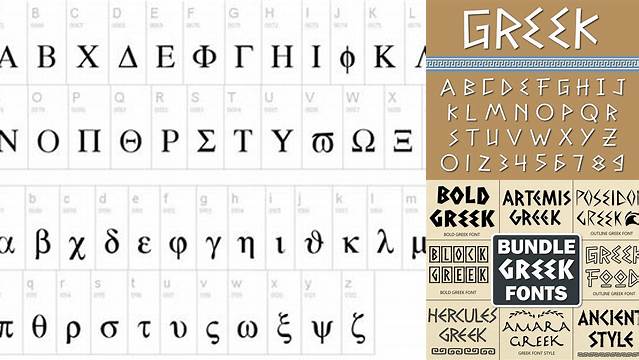
Free Classical Greek Fonts: Download & Use Guide
Are you fascinated by the beauty and history of the Greek alphabet? Do you want to add a touch of ancient elegance to your projects? You're in the right place! This guide will walk you through everything you need to know about classical Greek fonts, offering free downloads and tips on how to use them effectively. Whether you're a designer, a student, or simply someone who appreciates the art of typography, you'll find valuable insights here. Get ready to explore the world of Greek fonts and unlock their potential for your creative endeavors.
Understanding Classical Greek Fonts
So, what exactly are classical Greek fonts? These fonts are designed to replicate the letterforms used in ancient Greece. They capture the essence of the original Greek alphabet, which has been a cornerstone of Western civilization for millennia. These fonts are not just about aesthetics; they represent a rich history of language, philosophy, and art. Using these fonts can add a layer of authenticity and sophistication to your work, making it stand out. They are perfect for a variety of projects, including historical documents, academic papers, website designs, and even artistic creations. When you download a classical Greek font, you're not just getting a set of letters; you're gaining access to a piece of history and culture. There are many different styles within the category of classical Greek fonts, each with its unique characteristics. Some fonts may aim to replicate the inscriptions found on ancient monuments, while others might reflect the style of handwritten manuscripts. Understanding the different styles available allows you to choose the perfect font for your specific needs. This also helps you to convey the right message to your audience, as the choice of font can significantly influence the overall tone and impact of your work. The evolution of the Greek alphabet is a fascinating subject. It began as an adaptation of the Phoenician alphabet and gradually developed into the system we recognize today. Over time, different scripts and styles emerged, each reflecting the artistic and cultural influences of its era. When you use a classical Greek font, you’re connecting with this rich legacy. It’s like giving your work a direct link to the ancient world. Considering the variations of the Greek alphabet is crucial. You'll find fonts that accurately render all the characters, including accents, diacritics, and special symbols. Make sure the font you choose supports all the necessary characters to avoid any display issues. You should look for fonts that offer a comprehensive character set to ensure that your text looks as it should. Some fonts may include extended character sets with various mathematical and scientific symbols. This is especially useful for academic and technical projects. The beauty of using classical Greek fonts is in the details. Even the subtle differences between fonts can dramatically alter the look and feel of your design. Carefully selecting the right font is essential for creating the desired visual effect. Whether you're aiming for a formal, academic look or a more artistic and creative feel, choosing the right classical Greek font will make a big difference.
Where to Find Free Classical Greek Fonts
Alright, so you're keen to get your hands on some free classical Greek fonts? Awesome! There are plenty of resources available online where you can find these fonts. Let's take a look at some of the best places to start your search. One of the most popular websites for free fonts is Google Fonts. They offer a fantastic selection of fonts, many of which support Greek characters. The best part? They are all free to use for both personal and commercial projects. This makes them a great option for designers, students, and anyone looking to experiment with Greek typography without spending a dime. Another excellent source is Font Squirrel. This website handpicks high-quality, free fonts, making it easy to find something that fits your needs. Font Squirrel also provides a convenient way to identify fonts. Using their font identifier, you can upload an image of Greek text and find the font that matches. This is especially useful if you're trying to replicate a specific look or style. Be sure to check the licensing information for each font. Although many are free for commercial use, it's always a good idea to confirm the details. This ensures that you comply with the font's usage terms and avoid any potential legal issues. Many websites also offer font packs or bundles. These packs often include a variety of classical Greek fonts, allowing you to explore different styles and find the perfect font for your project. This is a great way to discover new fonts. If you're looking for unique fonts that are not readily available elsewhere, consider visiting smaller, independent font foundries or design blogs. These sources often feature specialized fonts. By exploring different platforms, you increase your chances of finding something truly special. Before you download a font, make sure to check its character set. Verify that it supports all the Greek characters you need, including any accents, diacritics, and special symbols. The last thing you want is to discover that your font doesn’t have all the characters you require. Always ensure the font includes comprehensive character support, so you don't face any issues during your project. Always check for updates to the fonts. Font designers may release updated versions that fix bugs or include additional features. Staying up-to-date ensures you have the best possible experience. Always keep an eye out for any potential licensing restrictions. The vast majority of fonts are free, but it’s always a good practice to read the fine print. Taking these steps will help you find and use the best free classical Greek fonts for your needs.
Using Classical Greek Fonts in Your Projects
Now that you have your classical Greek fonts installed, it's time to start using them in your projects! But, how do you effectively use them? There are many ways to incorporate these fonts to enhance your designs. Here are some tips and tricks to help you get started. First and foremost, consider the context of your project. Where will your text be displayed? What message do you want to convey? The choice of font should always align with the overall purpose and style of your work. For example, a formal academic paper might benefit from a more traditional, classic font. On the other hand, an artistic or creative project might call for a more unique or stylized Greek font. When working with Greek fonts, it's important to be mindful of readability. Ensure that the font you choose is clear and easy to read, especially in smaller sizes. Avoid using overly ornate fonts for large blocks of text, as they can be difficult to read. Pay attention to the spacing between the letters, words, and lines of text. Adjusting the kerning and leading can dramatically improve the readability and visual appeal of your text. Experiment with different sizes and styles. Try bolding, italicizing, and varying the size of your text to create visual interest and hierarchy. This can help draw attention to key elements and guide the reader's eye through the content. Make sure you choose the right font for the appropriate context. In a historical document, select a font that mimics the style of ancient inscriptions. For modern designs, select a font that reflects contemporary aesthetics. Combining these different font types can create a unique and visually appealing design. Always consider the character set available in your chosen font. Ensure that it supports all the necessary Greek characters, including any accents and diacritics. There are often issues of compatibility between different software and systems, so checking the character set can save you a lot of trouble. Experiment with different text layouts and arrangements. Try using Greek fonts in headlines, titles, or headings to add visual interest and highlight important information. Avoid using Greek fonts in large blocks of body text, as this can reduce readability. By following these guidelines, you can effectively incorporate classical Greek fonts into your projects and elevate their visual impact. Experiment with different options to find the perfect balance between form and function. The beauty of these fonts lies in their versatility and the ability to bring a touch of history and elegance to any design. Remember, the right choice of font can make all the difference.
Encountering problems while using classical Greek fonts? Don't worry, it's not uncommon. Here's how to troubleshoot some common issues. One of the most frequent problems is missing characters. If some Greek letters appear as boxes or question marks, it likely means that the font you're using doesn't include those characters. The solution is to choose a font that supports the full range of Greek characters, including accents, diacritics, and any special symbols. Another common issue is font compatibility. Ensure that the font is compatible with your software and operating system. Some fonts may not work correctly with certain programs or older systems. Always check the font's compatibility details. If you find that a font is not displaying correctly, try reinstalling it. First, uninstall the font from your system, then download it again. You should install it again by following the correct installation process for your operating system. Corrupted font files can also cause problems. If you suspect that the font file is damaged, try downloading it from a different source. Some fonts are designed for print, while others are optimized for digital display. If you're using a font for a website, make sure it's web-safe and optimized for screen viewing. This will ensure optimal readability and prevent display issues. Check your software settings. Ensure that the application you're using supports Greek characters and that the font you've selected is properly installed and enabled in the program. If the text appears distorted or misaligned, check the font's kerning and tracking settings. These settings control the spacing between characters. You may need to adjust them to improve readability. If you are facing any issues, always ensure that you have the latest version of the font. Font designers often release updates. These updates may fix bugs or improve the functionality of the font. By following these steps, you should be able to troubleshoot and resolve most of the common issues you encounter when using classical Greek fonts. Don't be discouraged by these challenges; the results are usually worth the effort!
Conclusion: Embrace the Beauty of Classical Greek Fonts
In conclusion, classical Greek fonts offer a unique way to add history, elegance, and sophistication to your projects. From finding and downloading them for free to understanding how to use them effectively, this guide has provided you with everything you need to get started. Now, you are equipped with the knowledge to find, download, and install these fonts. You've also learned how to effectively use them. Experiment, explore, and let your creativity flourish. Whether you're designing a website, writing a document, or creating artwork, classical Greek fonts can help you achieve stunning results. Don’t be afraid to experiment with different fonts. Play with their styles, and discover the perfect look for your needs. Take your time to practice. You should not worry about making mistakes. Embrace the beauty of the Greek alphabet and let it enhance your work. The world of typography is vast and diverse, and classical Greek fonts provide a gateway to a rich cultural heritage. Enjoy the journey and have fun!